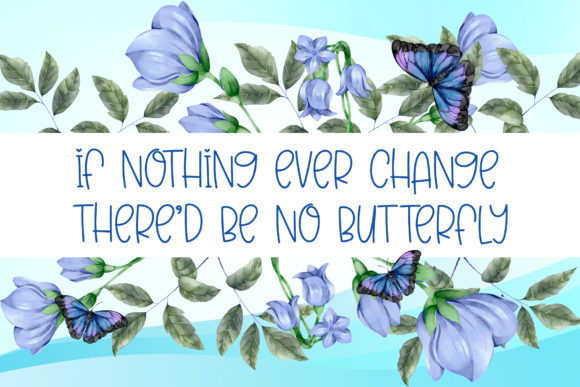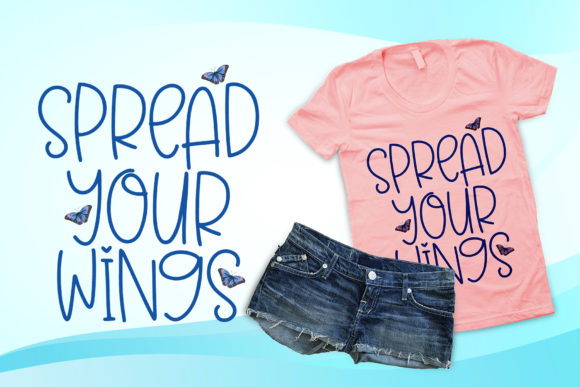
Blue Papillon Font
db-ku.com - Script & Handwritten -- Blue Papillon is a whimsical handwritten font. This font is great for those who love creating cute and lovely crafts, designs, cutting, printing, social media posts, and much more!